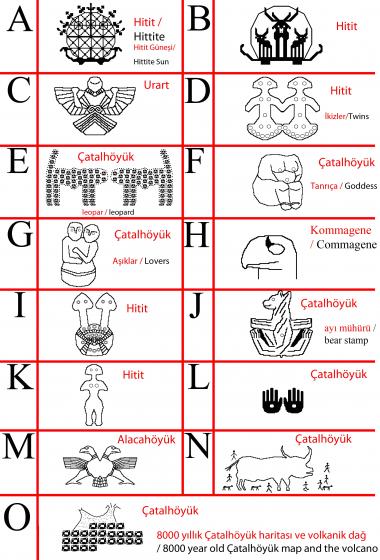
anadolu
It is a mix of everything. Those symbols don't belong to one civilization and they are collected by me according to my own taste from 9000 years.
More brilliant work! I'm very impressed. 10/10.
Great renderings of some interesting symbols. 10/10
Congratulations! FontStruct Staff have deemed your FontStruction worthy of special mention. “anadolu” is now a Top Pick.